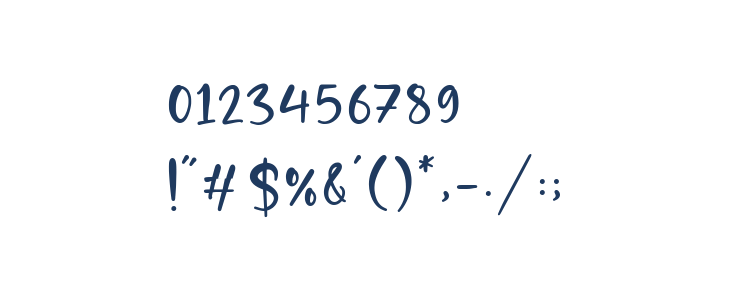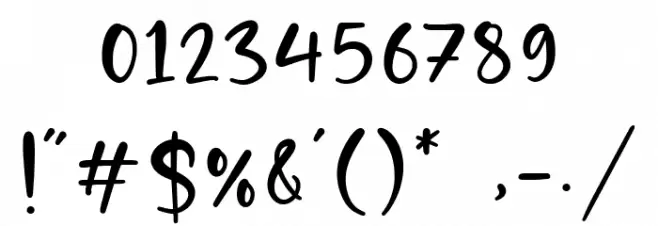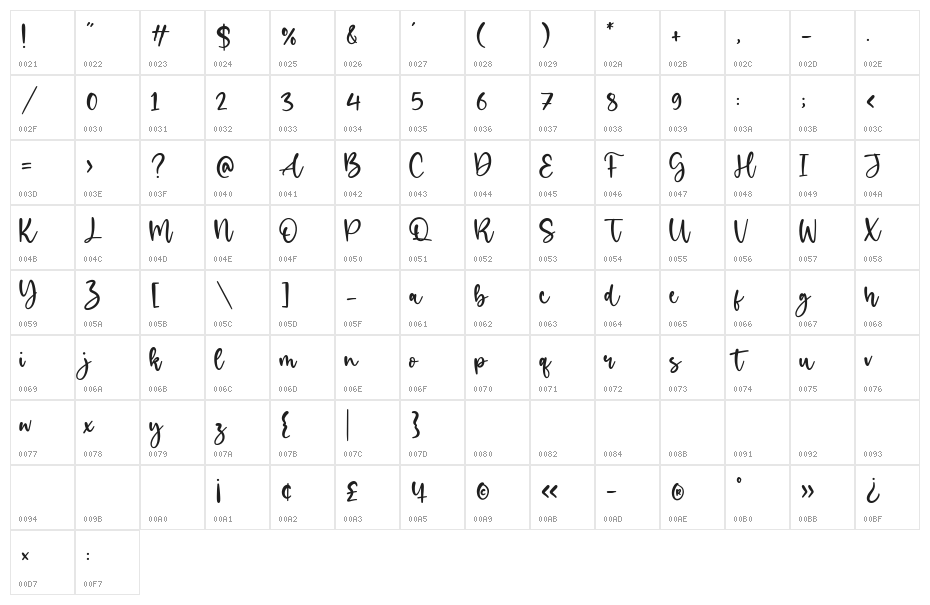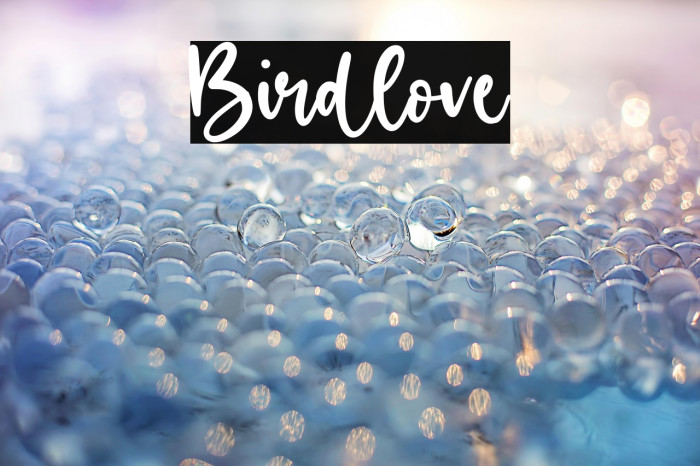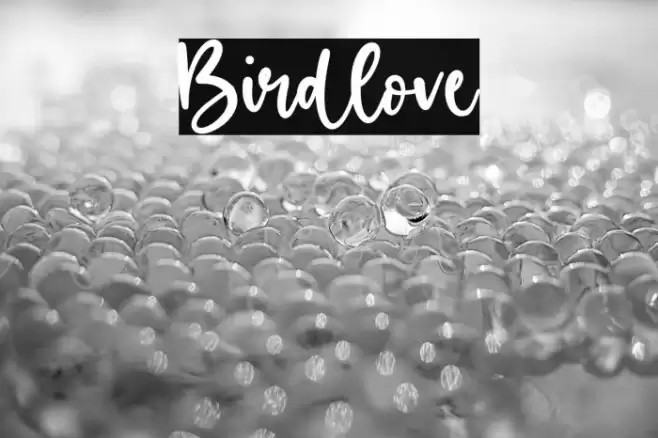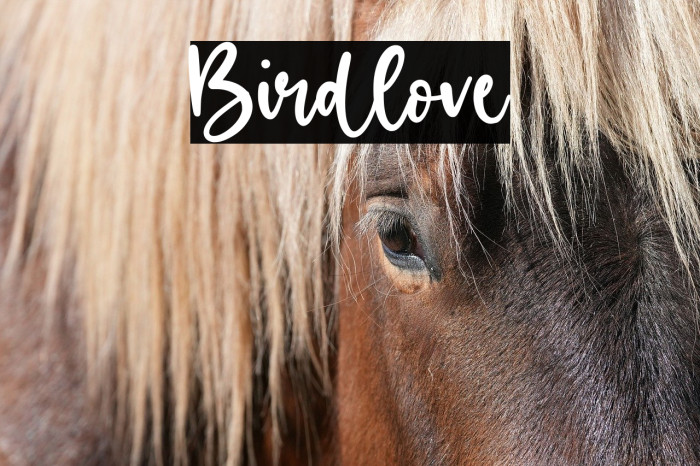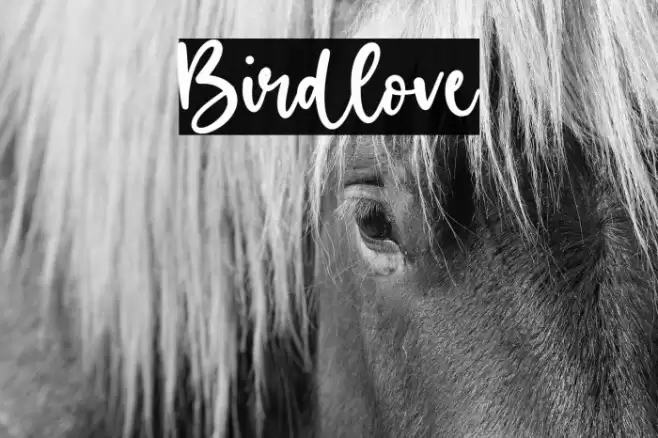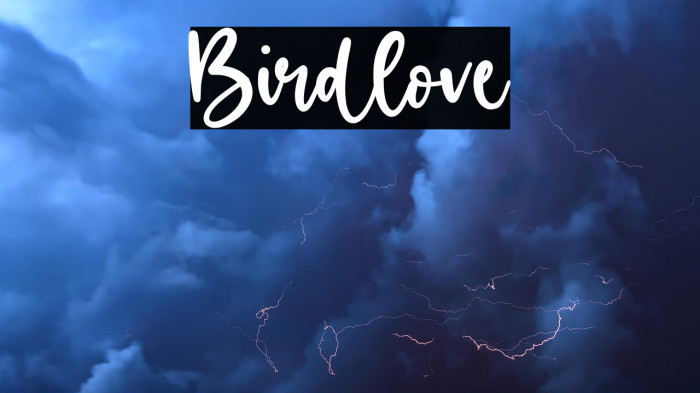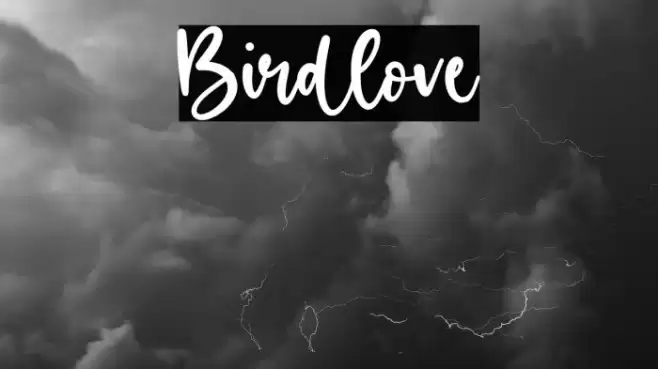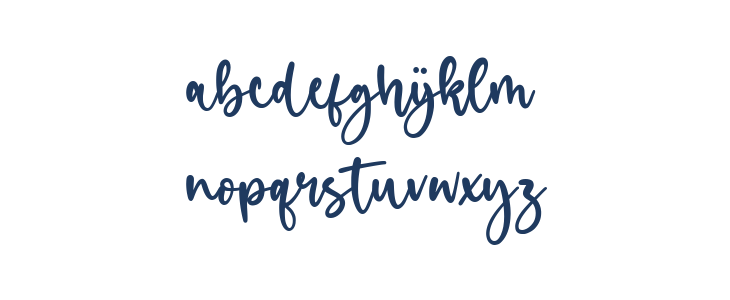
Birdlove Font
Birdlove Description
This font features a playful and flowing script style, characterized by its smooth, connected strokes and a handwritten aesthetic. The uppercase letters are bold and expressive, while the lowercase letters maintain a consistent flow, enhancing readability. Numbers and special characters are crafted with the same fluidity, ensuring a cohesive look across all text. The font exudes a sense of warmth and personality, making it ideal for projects that require a personal touch.
| Proposed Projects | Ideal for wedding invitations, greeting cards, branding, and social media graphics. |